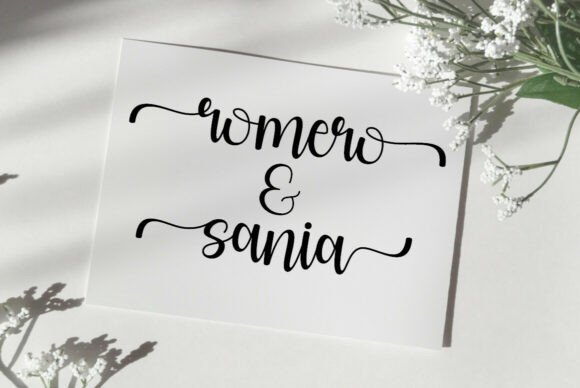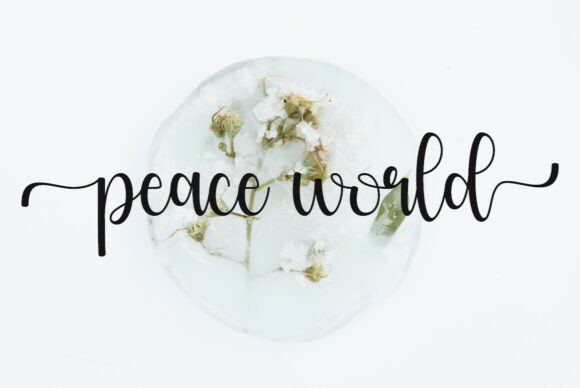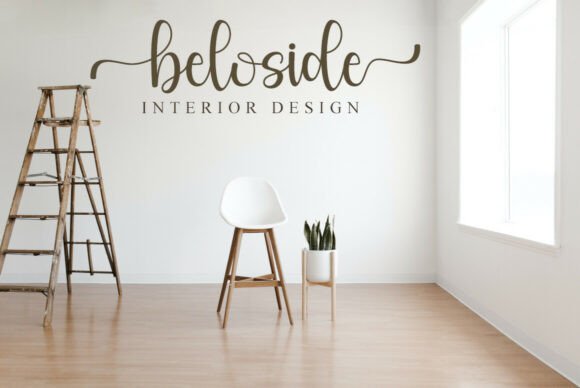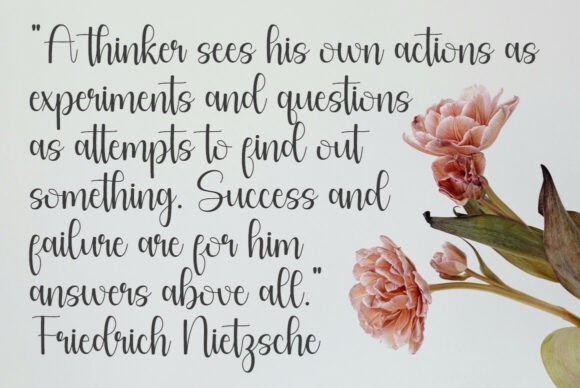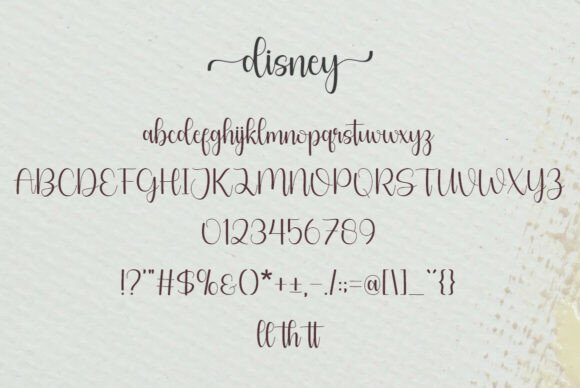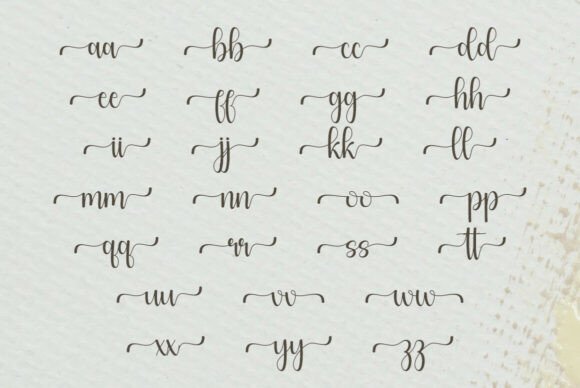
Introducing Disney Font: The Ultimate Choice for Elegant and Whimsical Designs
Are you a designer or crafter looking for a font that can add a touch of magic to your projects? Look no further than the Disney Font, a sweet and cursive handwritten font that is sure to delight. With its gentle and elegant strokes, this font is perfect for a variety of design ideas, from branding and logos to wedding stationery and greeting cards.
The Characteristics of Disney Font
Disney Font is a beautifully crafted handwritten font that boasts a range of characteristics that make it perfect for designers and crafters. Some of its key features include:
- Sweet and Cursive: Disney Font is a cursive handwritten font that is sweet and charming. Its flowing strokes and elegant lettering make it perfect for designs that require a touch of whimsy and romance.
- Versatile: This font is incredibly versatile and can be used on a wide range of design projects, from logos and branding to wedding stationery and greeting cards.
- Elegant and Casual: Disney Font strikes the perfect balance between elegance and casualness, making it perfect for designs that require a touch of sophistication without being too formal.
Uses for Disney Font
Disney Font is a versatile font that can be used on a wide range of design projects. Here are some ideas to get you started:
- Branding and Logos: Use Disney Font to create a unique and memorable logo for your brand. Its elegant and cursive strokes make it perfect for businesses that want to convey a sense of sophistication and whimsy.
- Wedding Stationery: Add a touch of romance and elegance to your wedding stationery with Disney Font. It’s perfect for wedding invitations, save-the-date cards, and more.
- Greeting Cards: Use Disney Font to create beautiful and heartfelt greeting cards for special occasions like birthdays, anniversaries, and holidays.
- Fashion and Lookbooks: Disney Font is perfect for fashion designers and bloggers who want to add a touch of elegance and sophistication to their lookbooks and marketing materials.
- Marketing and Promotion: Use Disney Font to create eye-catching marketing materials like brochures, flyers, and posters. Its elegant and cursive strokes make it perfect for businesses that want to convey a sense of luxury and sophistication.
Why Choose Disney Font?
So why choose Disney Font for your design projects? Here are just a few reasons:
- Unique and Eye-Catching: Disney Font is a unique and eye-catching font that is sure to stand out in a crowded design landscape.
- Elegant and Sophisticated: This font is perfect for designers and crafters who want to convey a sense of elegance and sophistication in their designs.
- Versatile: Disney Font is incredibly versatile and can be used on a wide range of design projects.
- Easy to Read: Despite its elegant and cursive strokes, Disney Font is easy to read and understand, making it perfect for designs that require a clear and concise message.
| Font Name | Disney Font |
| Author | Hardiboy Design |
In conclusion, Disney Font is a beautiful and versatile font that is perfect for designers and crafters who want to add a touch of magic to their projects. With its sweet and cursive strokes, elegant and sophisticated feel, and versatility, this font is sure to delight. Whether you’re creating branding materials, wedding stationery, or marketing materials, Disney Font is the perfect choice.